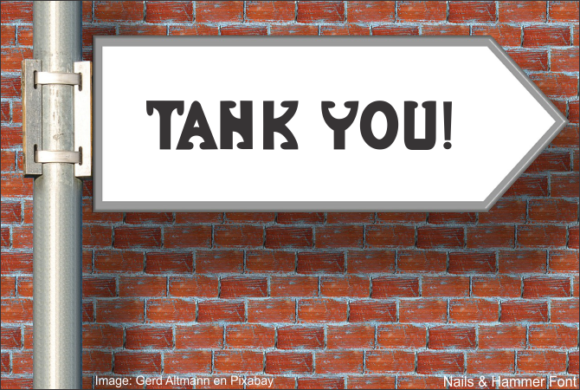
Introduction to Nails & Hammer Font
Have you ever found yourself staring at a blank canvas, desperately searching for the perfect font to bring your creative project to life? I know I have! It’s that moment when you’re willing to try anything to make your design stand out. That’s exactly when I discovered the Nails & Hammer Font – a quirky, high-quality display font that has become my go-to choice for unique design projects.
Not only is the Nails & Hammer Font a free download, but it’s also a valuable design resource for any creative project. With its transparent background and bold, eye-catching style, it’s perfect for adding a touch of whimsy to your designs. Whether you’re working on a branding project or a one-off design piece, this font is sure to bring a smile to your face and a spark to your creativity.
Key Features of Nails & Hammer Font
- Unique, hand-drawn style that adds a personal touch to any design project.
- Large character set, including uppercase and lowercase letters, numbers, and punctuation.
Honest Review: Nails & Hammer Font
I recently had the chance to use the Nails & Hammer Font for a creative project and I must say it was a great addition. This font is perfect for DIY enthusiasts, crafty folks, and anyone looking to add a touch of industrial chic to their design.
Here are some things that work well with the Nails & Hammer Font:
- High-quality design: The font is well-crafted and has a nice, rugged feel to it.
- Transparent background: This makes it easy to use the font on any background without worrying about awkward edges.
- ⚠️ Limited character set: The font only includes a limited set of characters, which may not be ideal for longer blocks of text.
- ⚠️ Not suitable for fine text: Due to its rugged nature, this font may not be the best choice for fine text or small print.
Overall, I was impressed with the Nails & Hammer Font. While it may not be perfect for every project, it’s a great design resource for those looking to add a bit of edge to their creative work.
Tips for Getting the Most Out of Nails & Hammer Font
To get the most out of the Nails & Hammer Font, experiment with different font sizes and styles to create a unique and eye-catching design. You can also use the font in combination with other design elements to create a cohesive and creative project.
The Nails & Hammer Font is a versatile design resource that can be used in a variety of creative projects, including logos, posters, and presentations. Its high quality and transparent background make it a great choice for designers who want to create professional-looking designs without a lot of extra work.
What is the recommended font size for using the Nails & Hammer Font in a design project?
The recommended font size for using the Nails & Hammer Font in a design project depends on the specific application and desired visual effect. However, as a general rule, it’s best to use the font at a size that is at least 18-24 points to ensure clear readability. This will also help to maintain the font’s high-quality appearance and ensure that it looks its best in your design project.